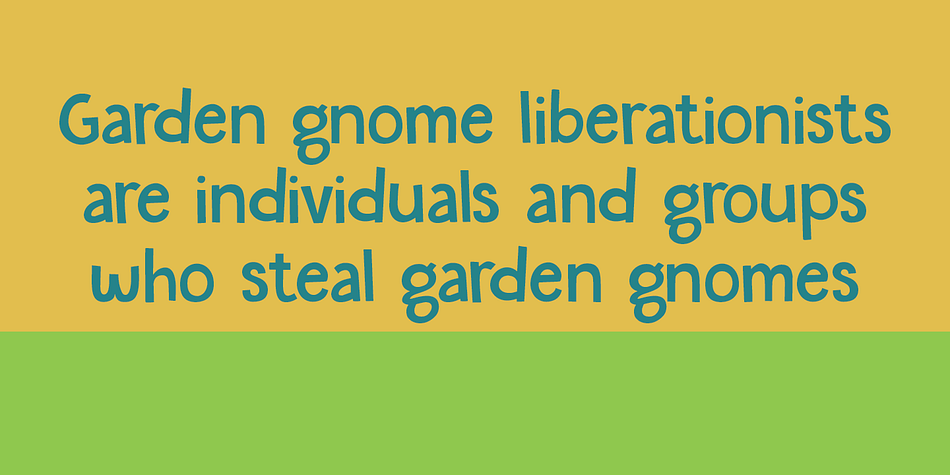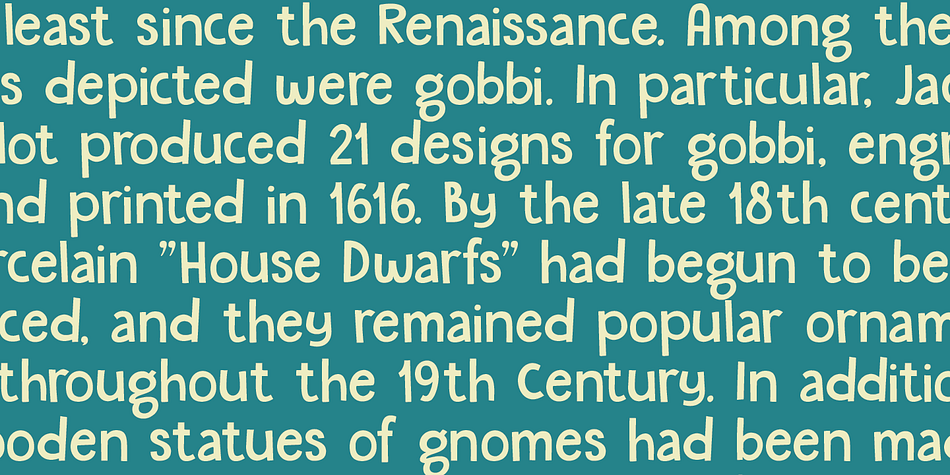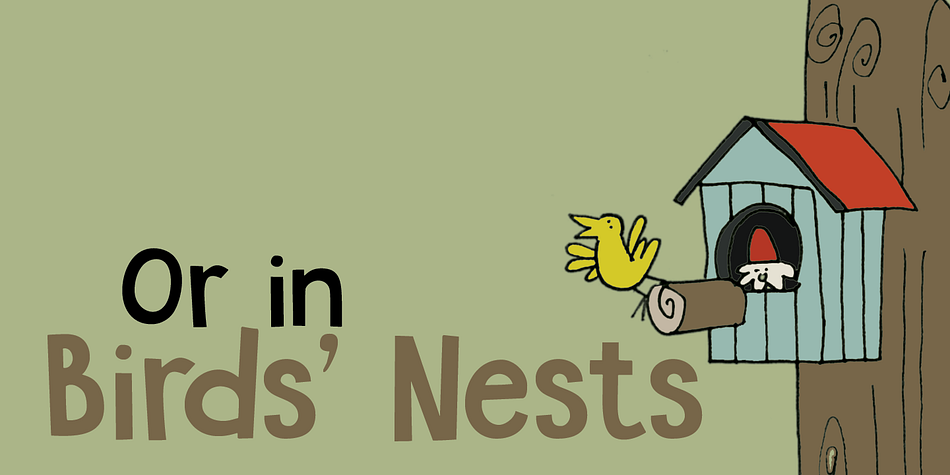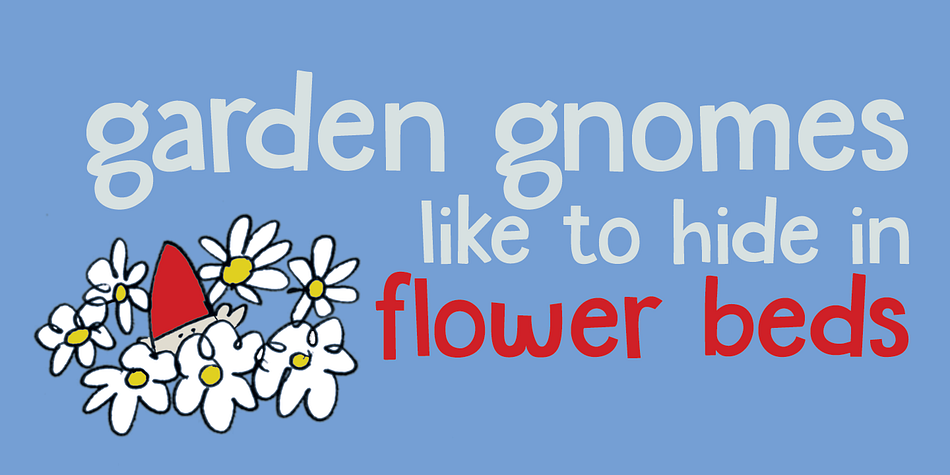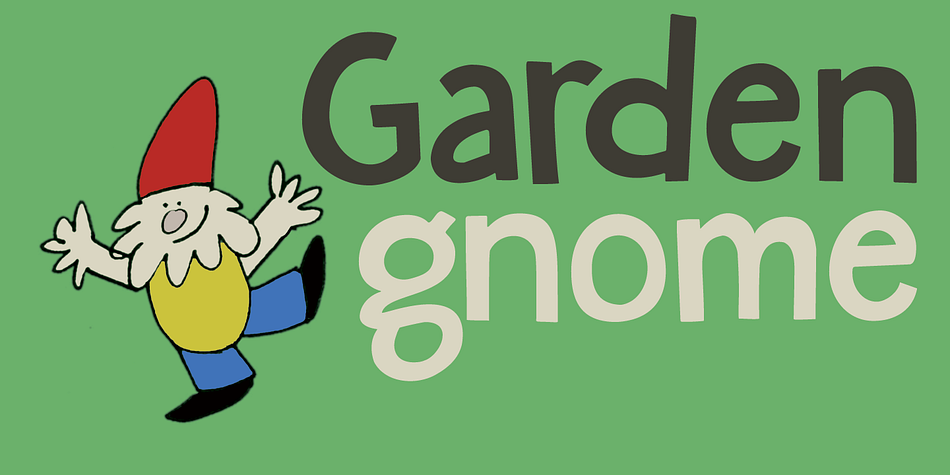
Designed by David Kerkhoff, Garden Gnome is a hand drawn and kids font published by Hanoded.
I am not really fond of Garden Gnomes, but this font is kinda cute and I figured it’d be a nice name. Garden Gnome is a very happy, easy to read Children’s Book font. It is bouncy, rounded and comes with all the diacritics you need.